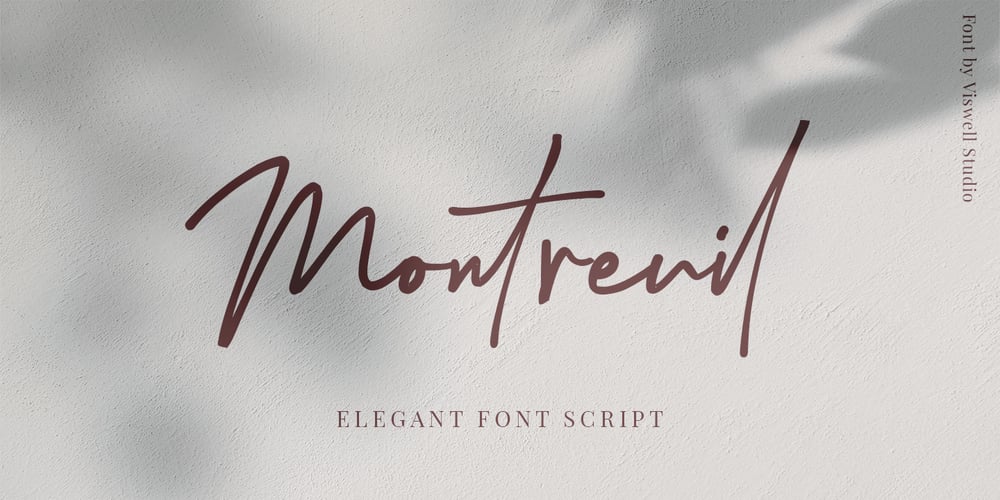
Montreuil Font Family was designed by Agam Rahmadan and published by Viswell. Montreuil contains 1 styles and family package options. Montreuil is an elegant signature font, created with the natural effect of handwriting, stylish.This font can be used for business cards, quotes, branding and more.Montreuil has multi-lingual support and contains a lot of ligatures.